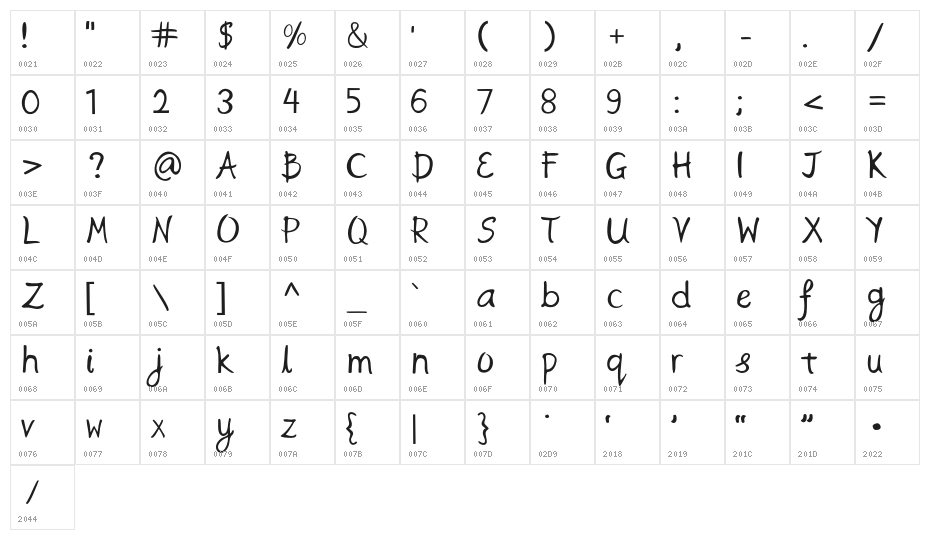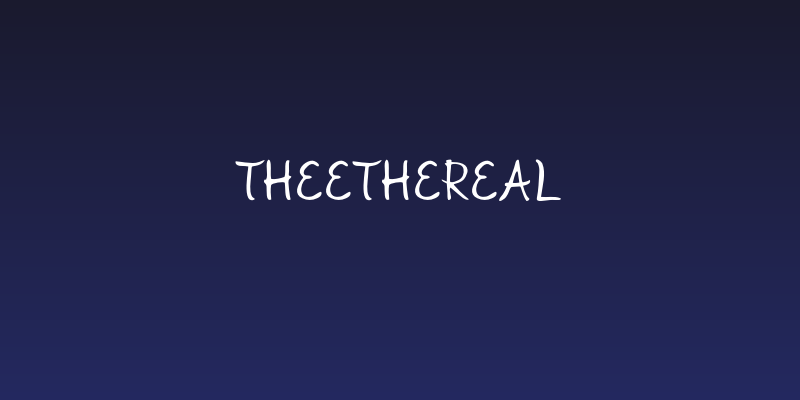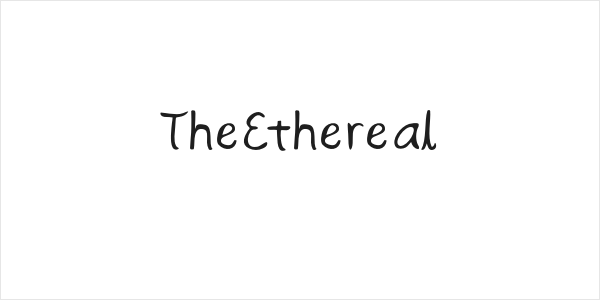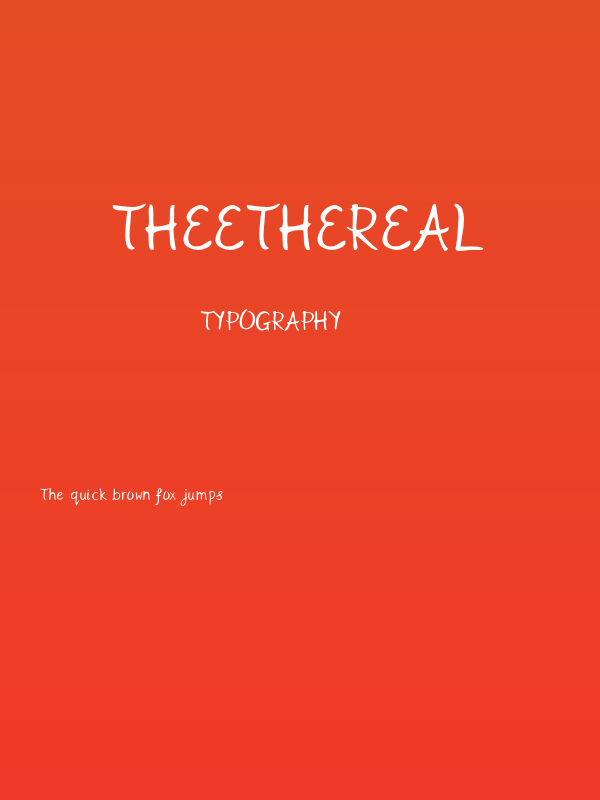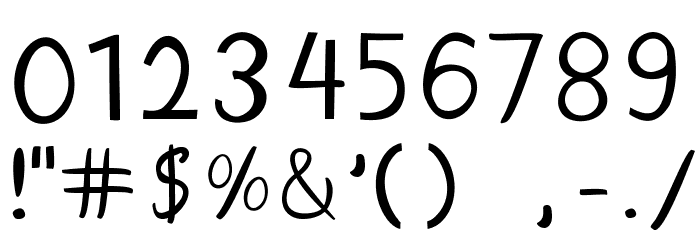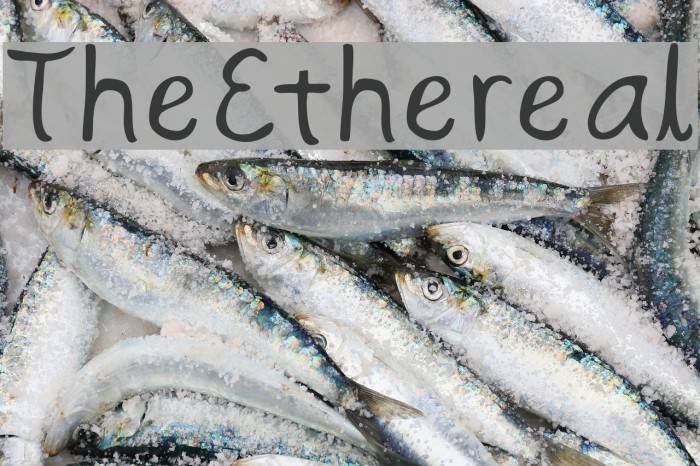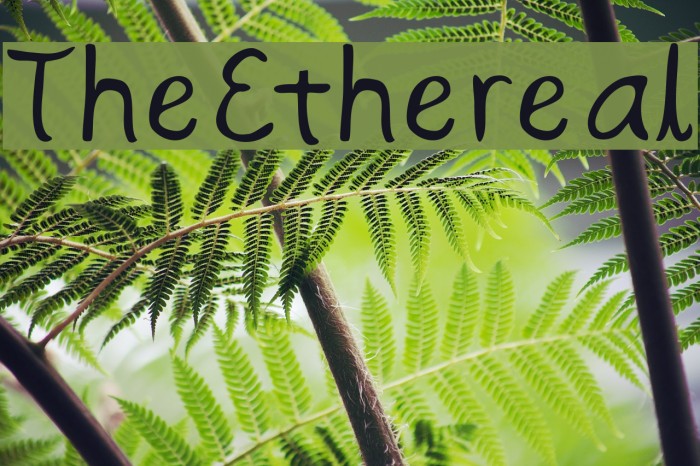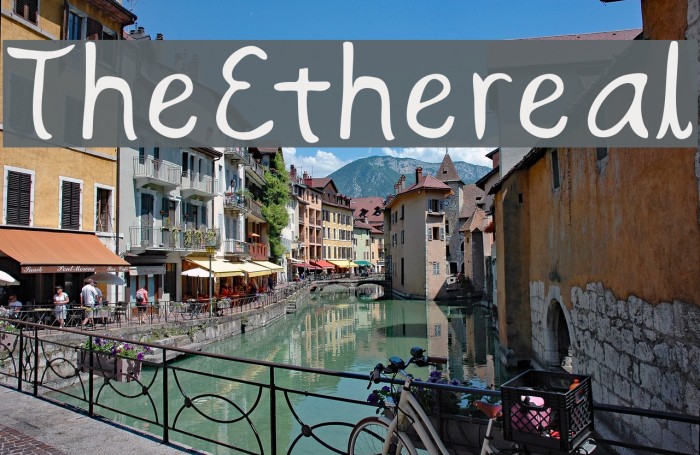
TheEthereal Font
TheEthereal Description
This font exudes a playful and whimsical charm, characterized by its handwritten style that combines both elegance and informality. The letters are slightly slanted, giving a dynamic and lively appearance. The strokes are smooth and fluid, with a consistent thickness that maintains readability while adding a touch of personality. The uppercase letters are bold and prominent, while the lowercase letters exhibit a more relaxed and casual feel. The numerals are clear and distinct, matching the overall style of the alphabet. Special characters are creatively integrated, maintaining the font's cohesive look. This font is perfect for projects that require a personal touch, such as invitations, greeting cards, or creative branding.
| Overall Style | Whimsical |
| Use Case | Creative branding, Invitations, Greeting cards |
| Proposed Projects | Ideal for invitations, greeting cards, creative branding, and personal projects. |